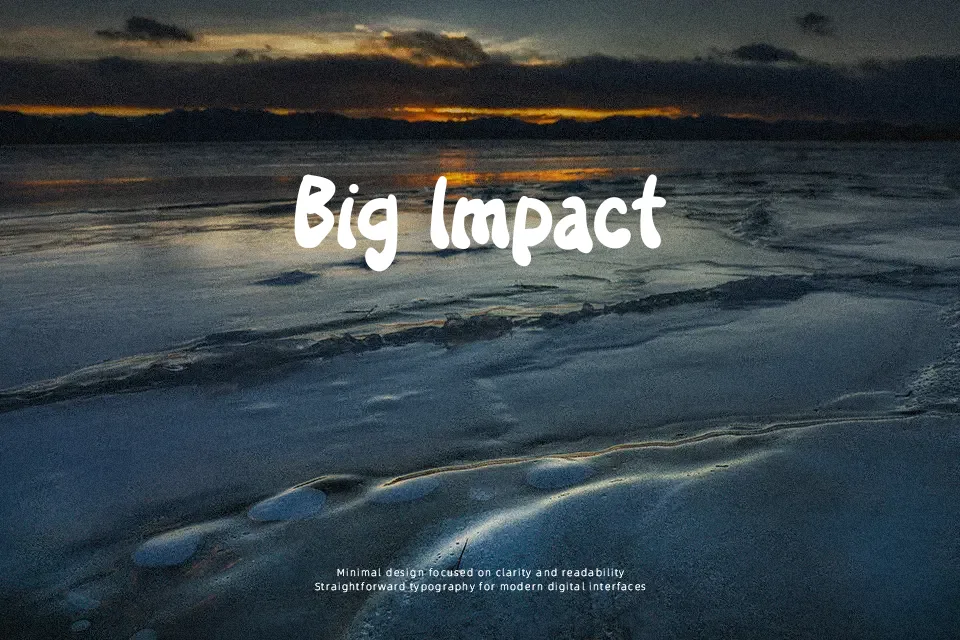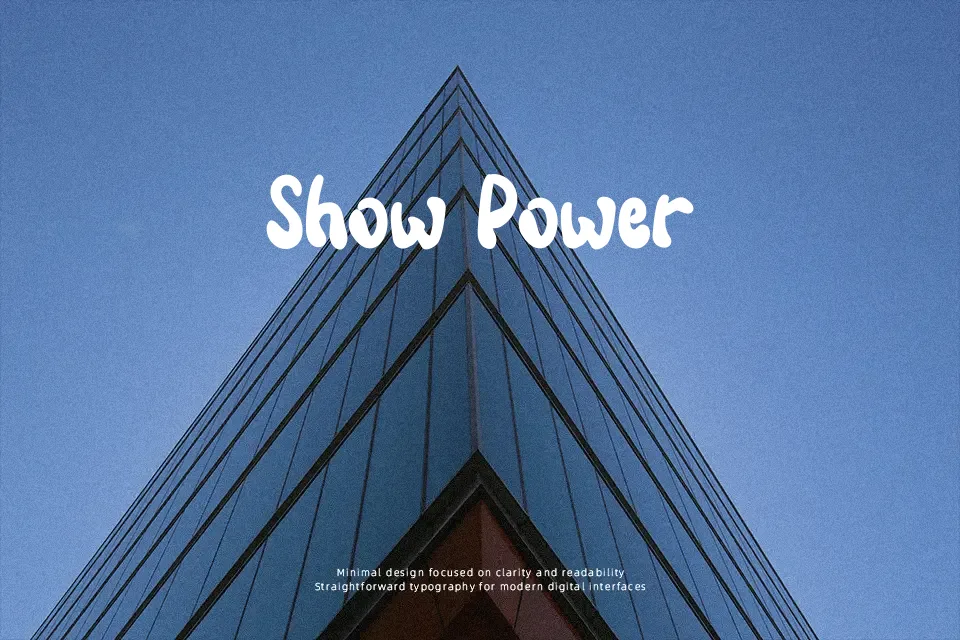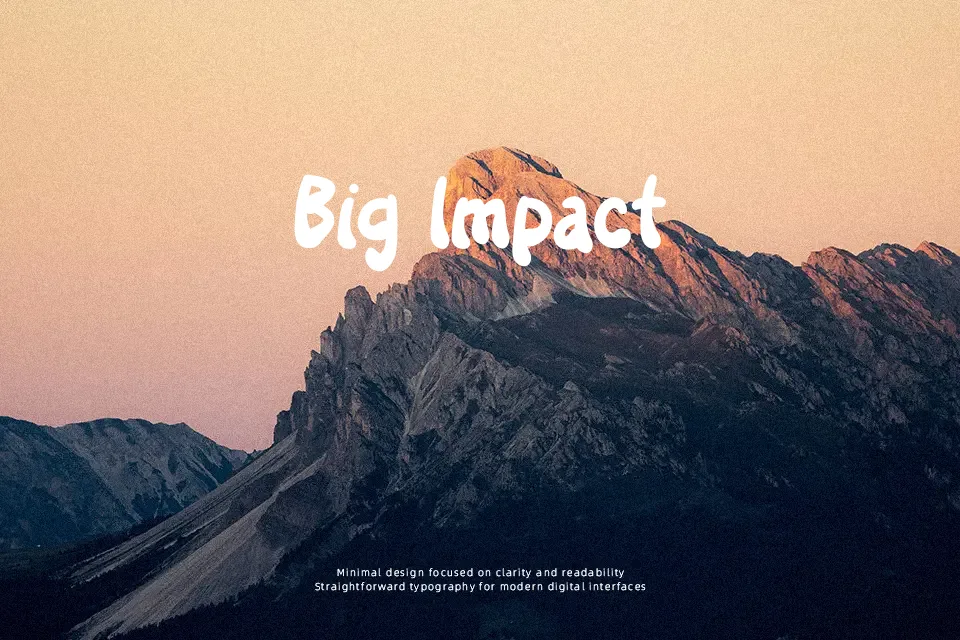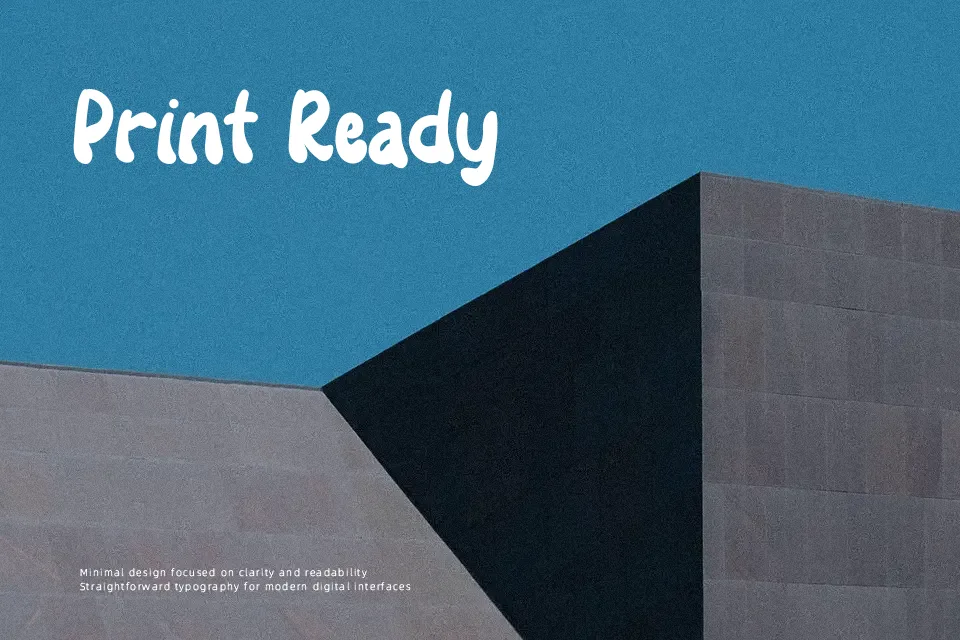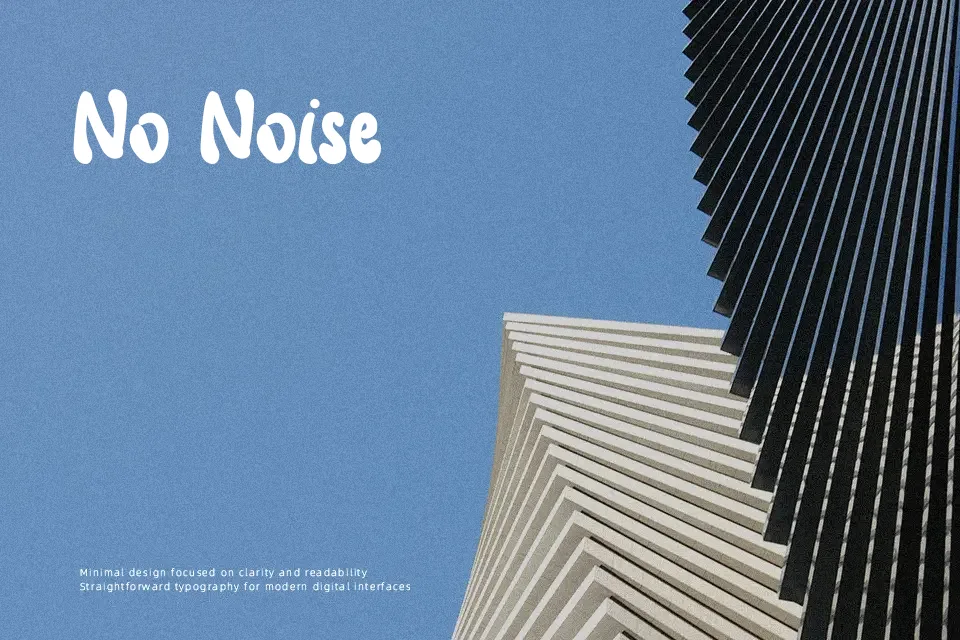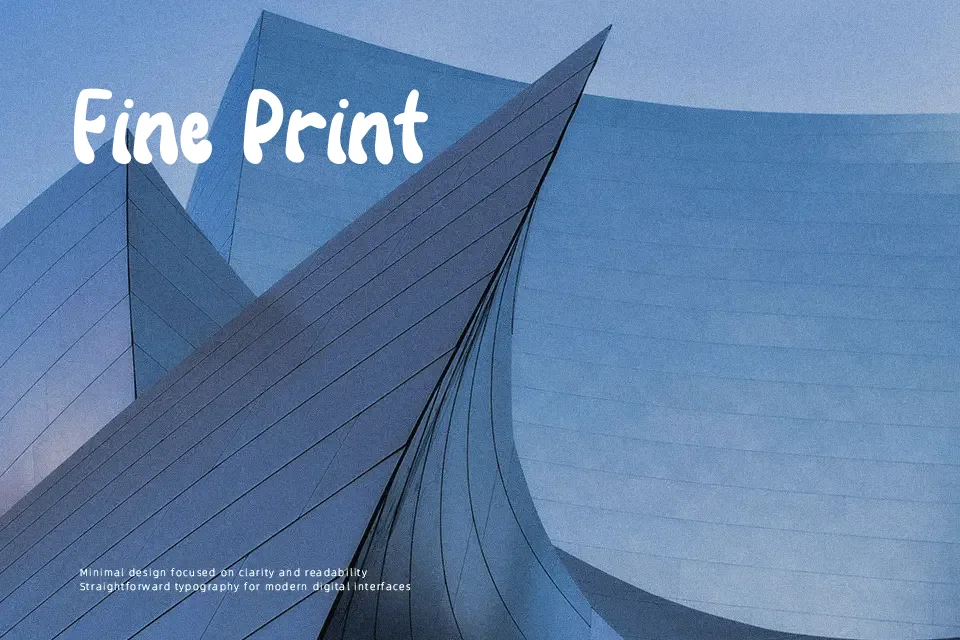
Salmon Hamburger Font
Built on hefty weights and soft curves, Salmon Hamburger Font establishes an informal presence tailored for punchy headlines and youth-oriented graphics. The characters feature balanced proportions with plump contours, keeping counters open enough to ensure solid recognition across display scales. Spacing remains relatively tight, lending titles a cohesive, sticker-like quality without causing glyphs to collide awkwardly. While visual impact is strong in short bursts, the heavy decorative presence makes extended body passages cumbersome to digest. The typeface functions most effectively when set in spacious layouts where its bouncy rhythm can stand out naturally.
– animated title sequences
– children’s book covers
– fast food packaging
– stickers and casual merchandise
– multi-paragraph body text
– financial spreadsheets
– formal stationery
– small mobile interface labels